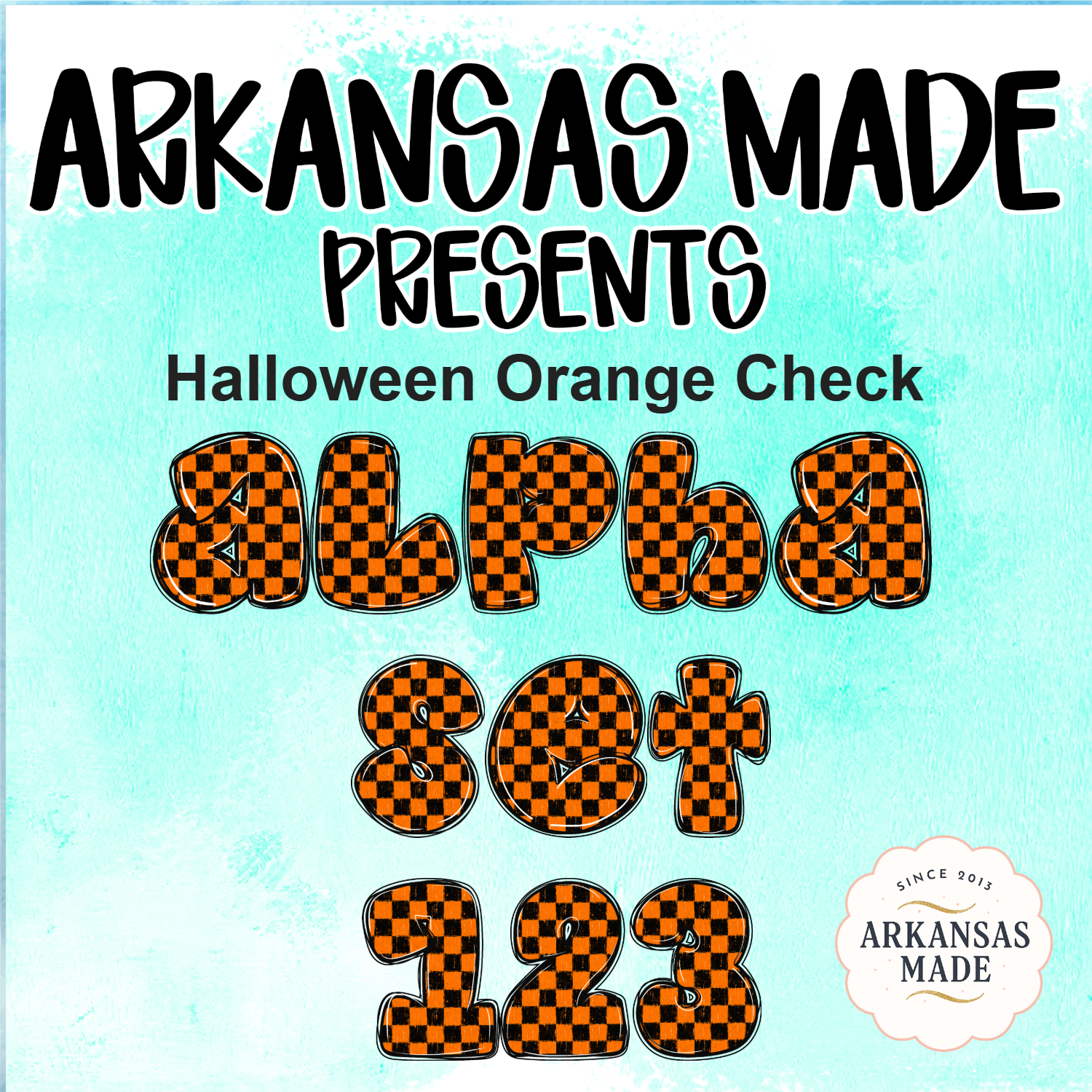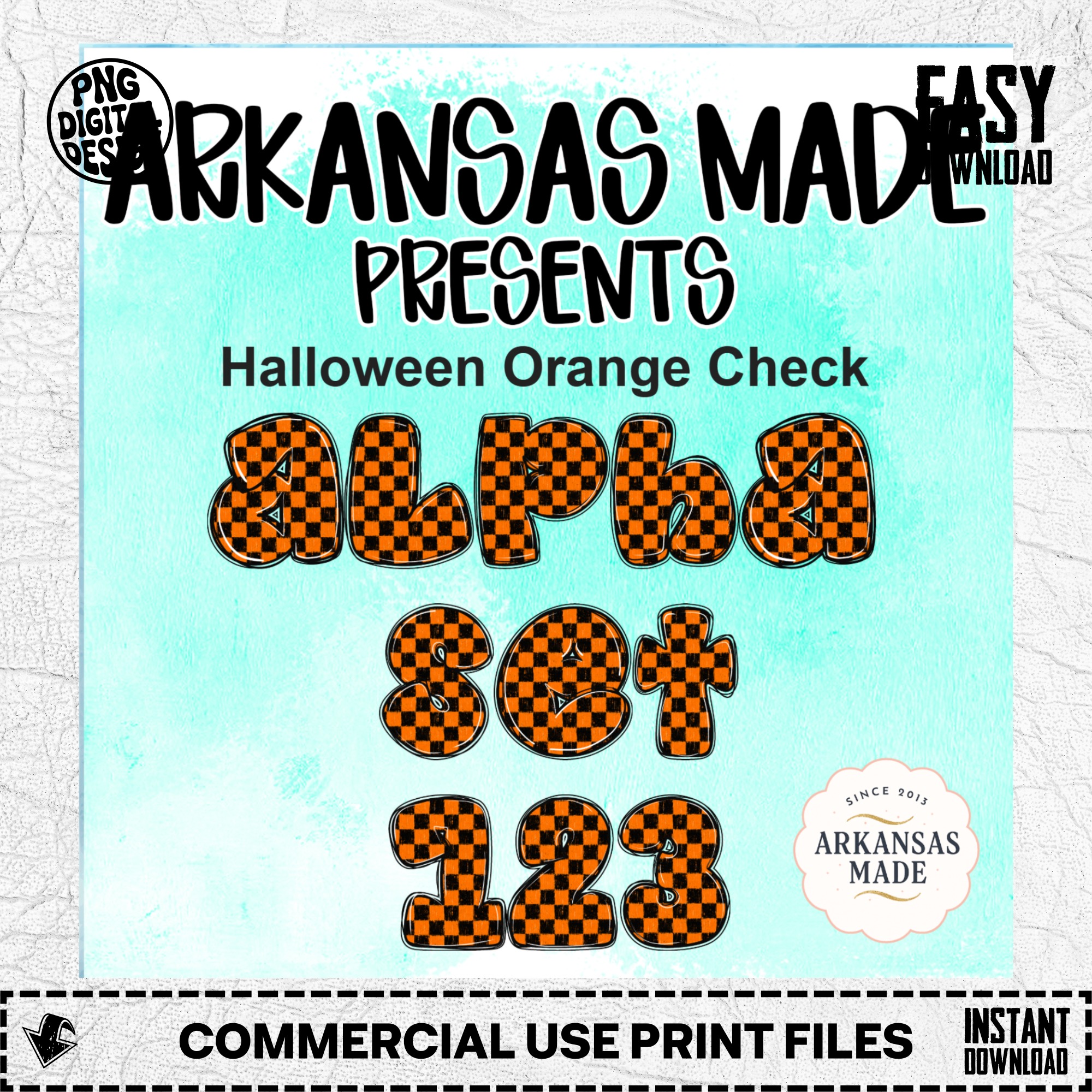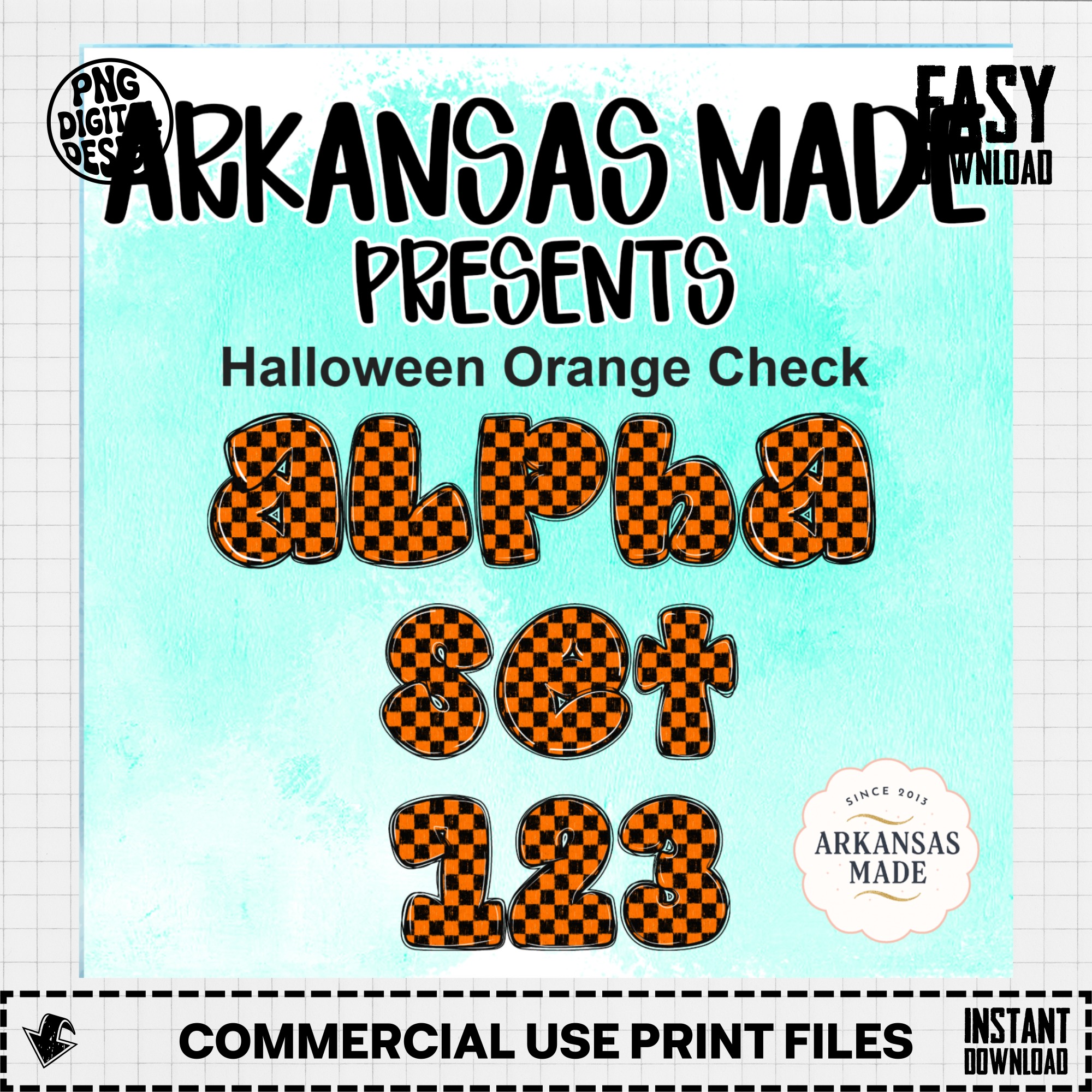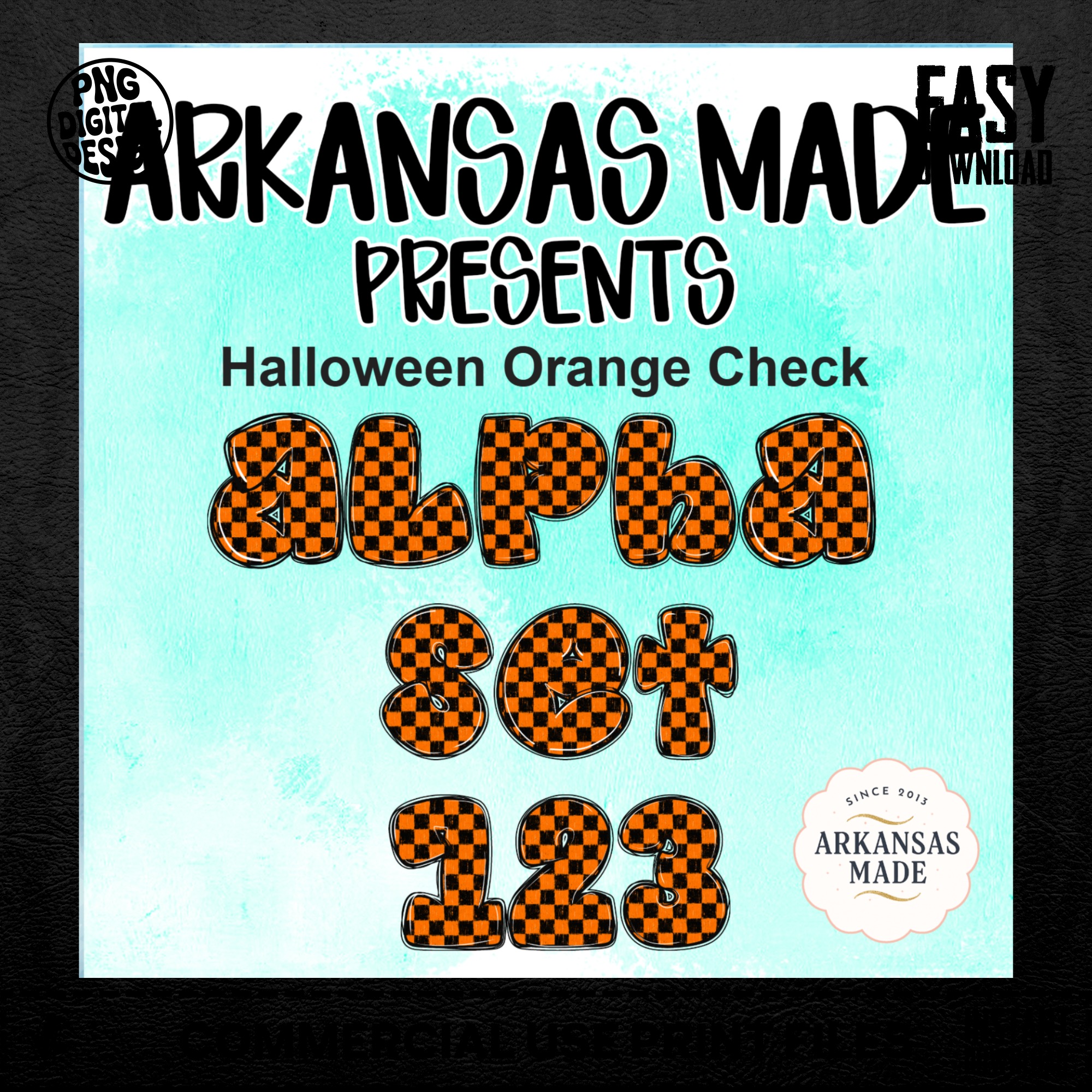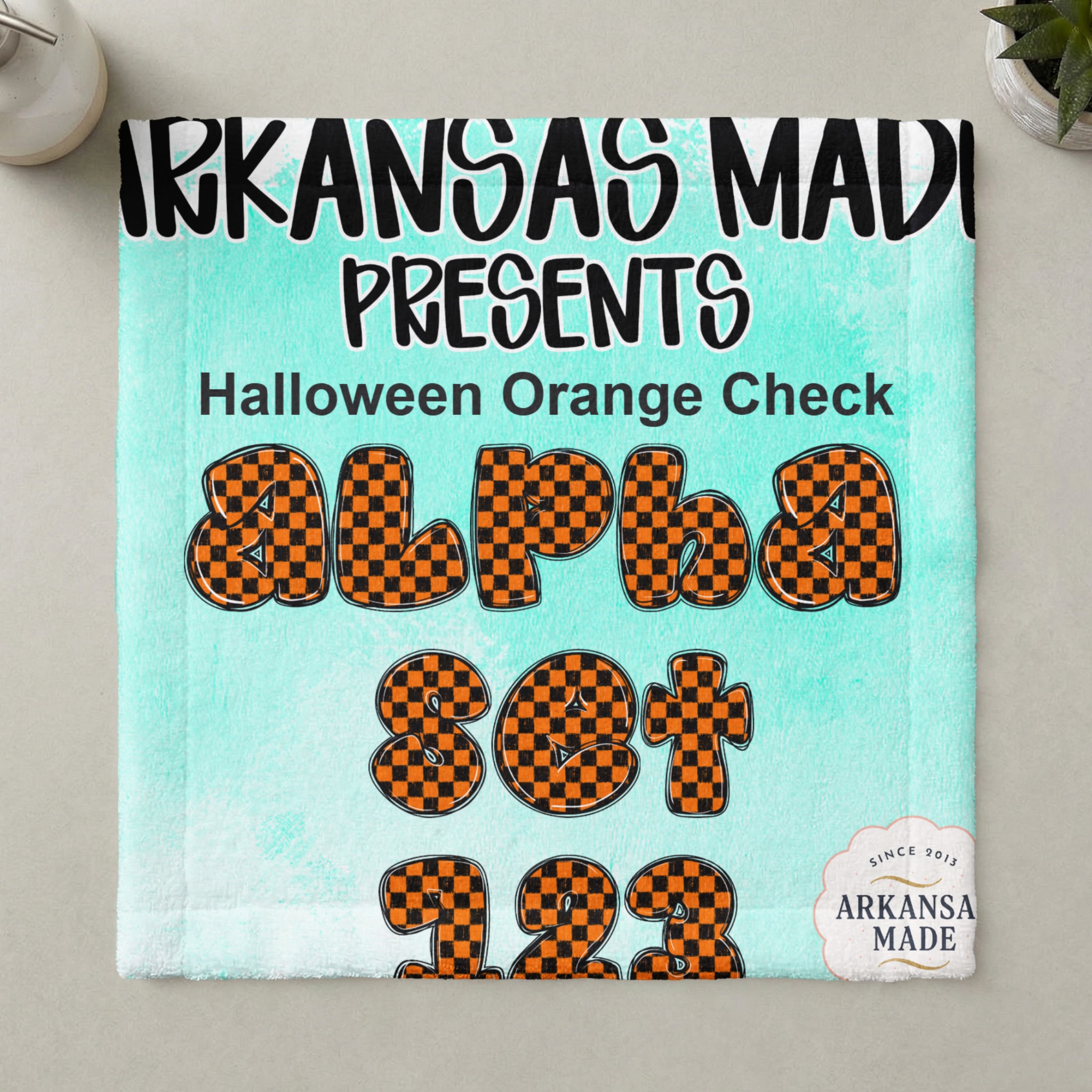
Halloween Orange Check Alpha Set 123 PNGs, Spooky Digital Letters for Ghostly Crafts, Retro Halloween Font
Unleash your creativity with our Halloween Orange Check Alpha Set 123 PNGs, perfect for all your spooky season digital projects! This fun, retro-inspired checkered alphabet brings a playful yet eerie vibe ideal for crafters, designers, and Halloween enthusiasts. Whether you’re making custom apparel, party invitations, or digital art, these versatile letters are a must-have for unique holiday creations.